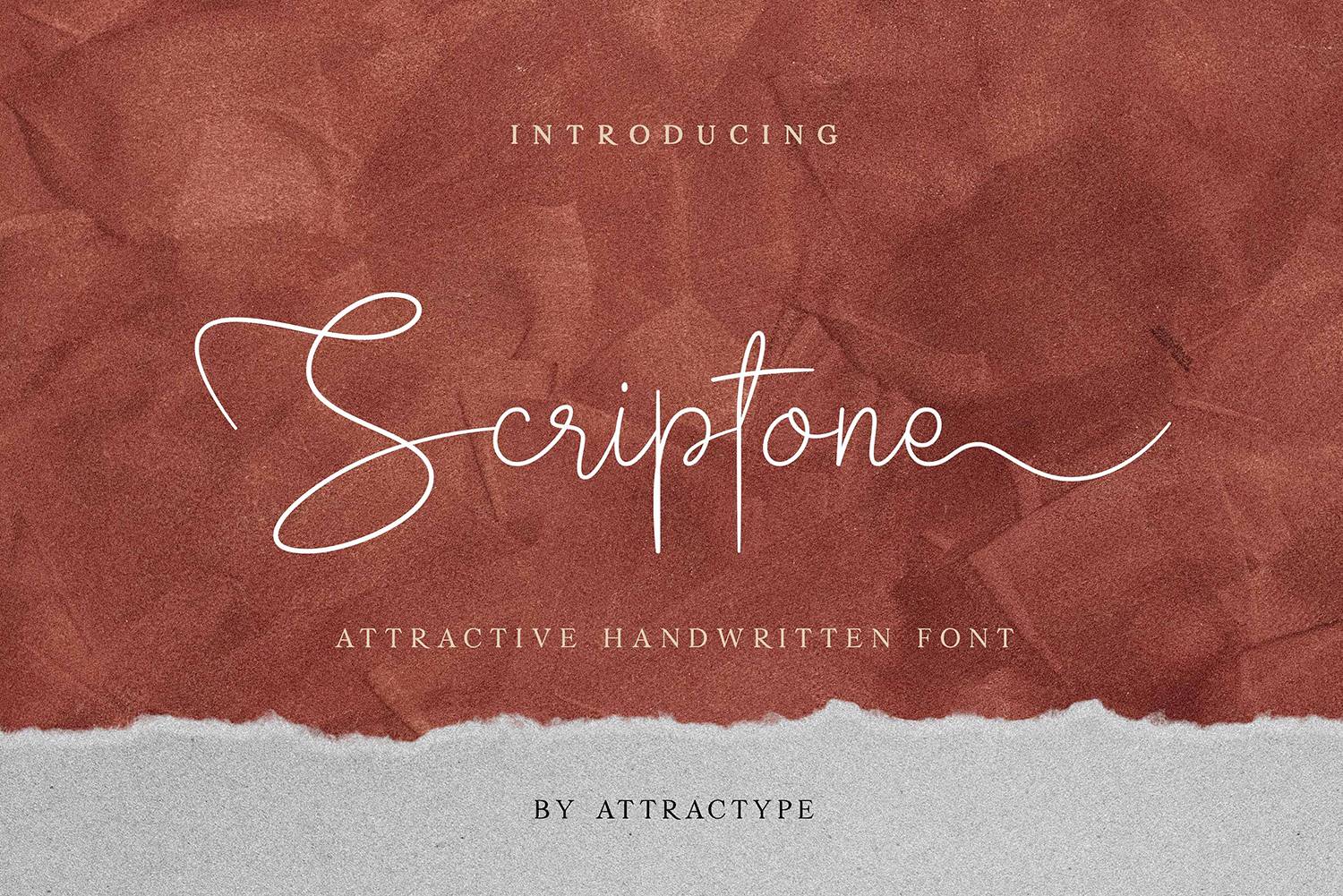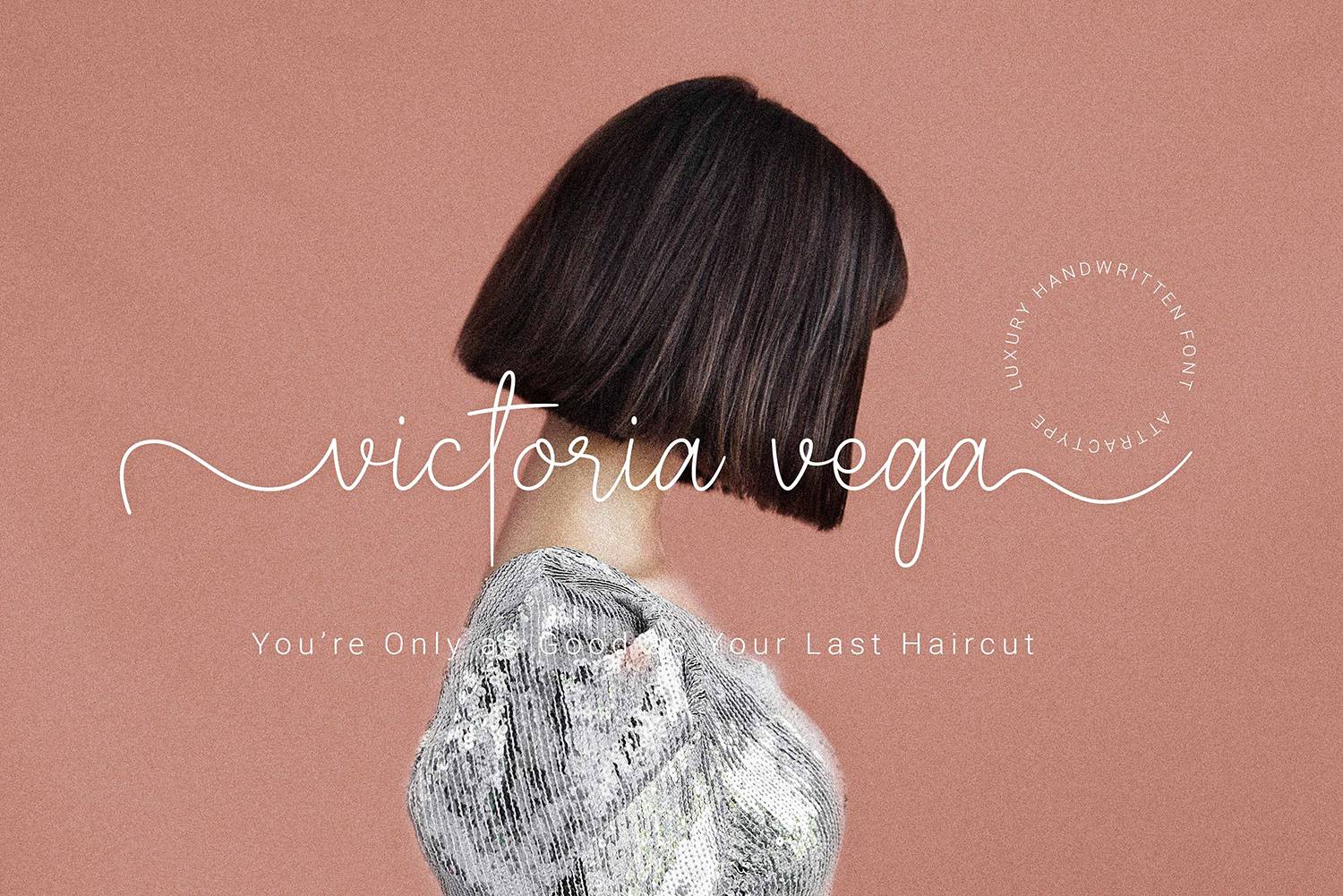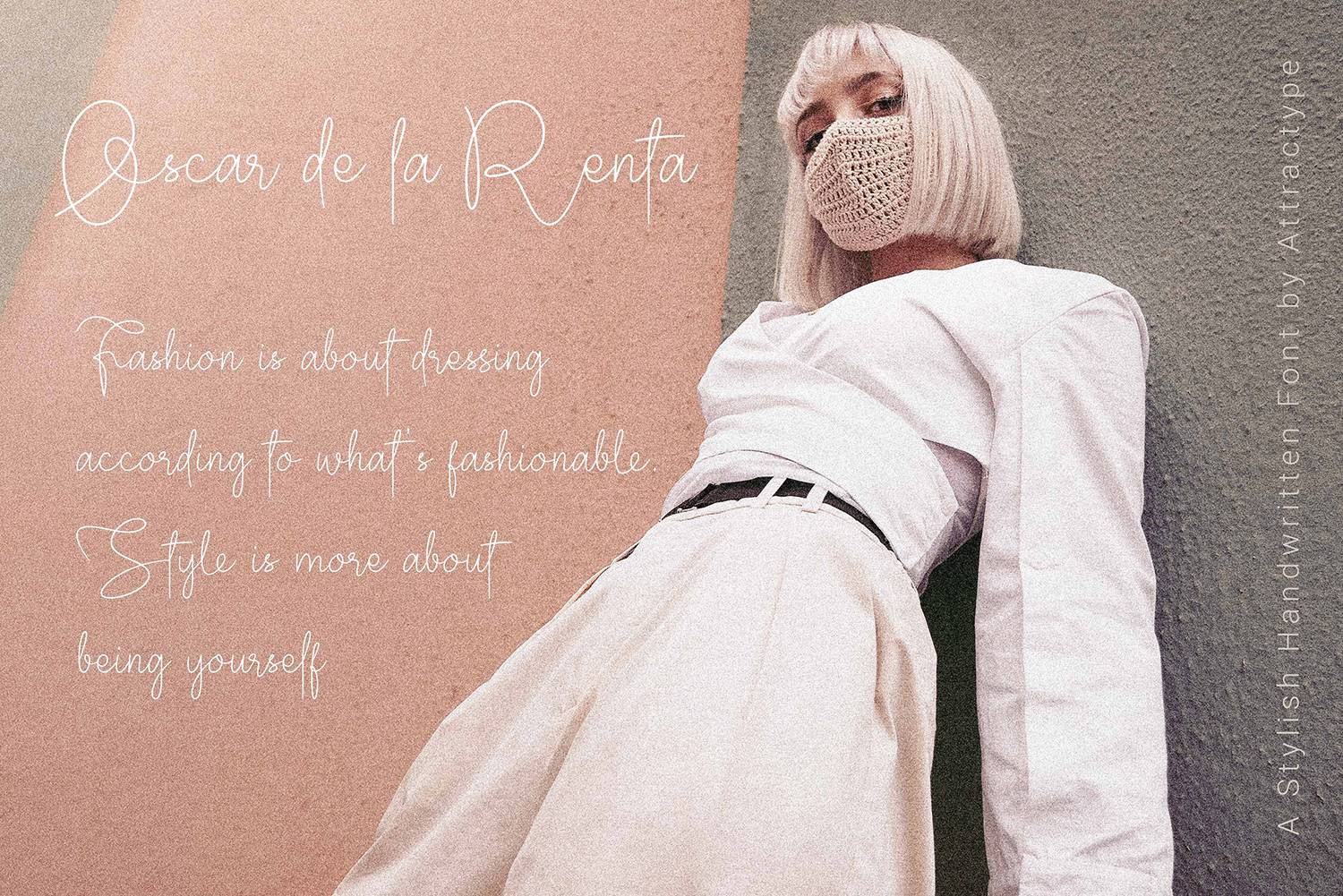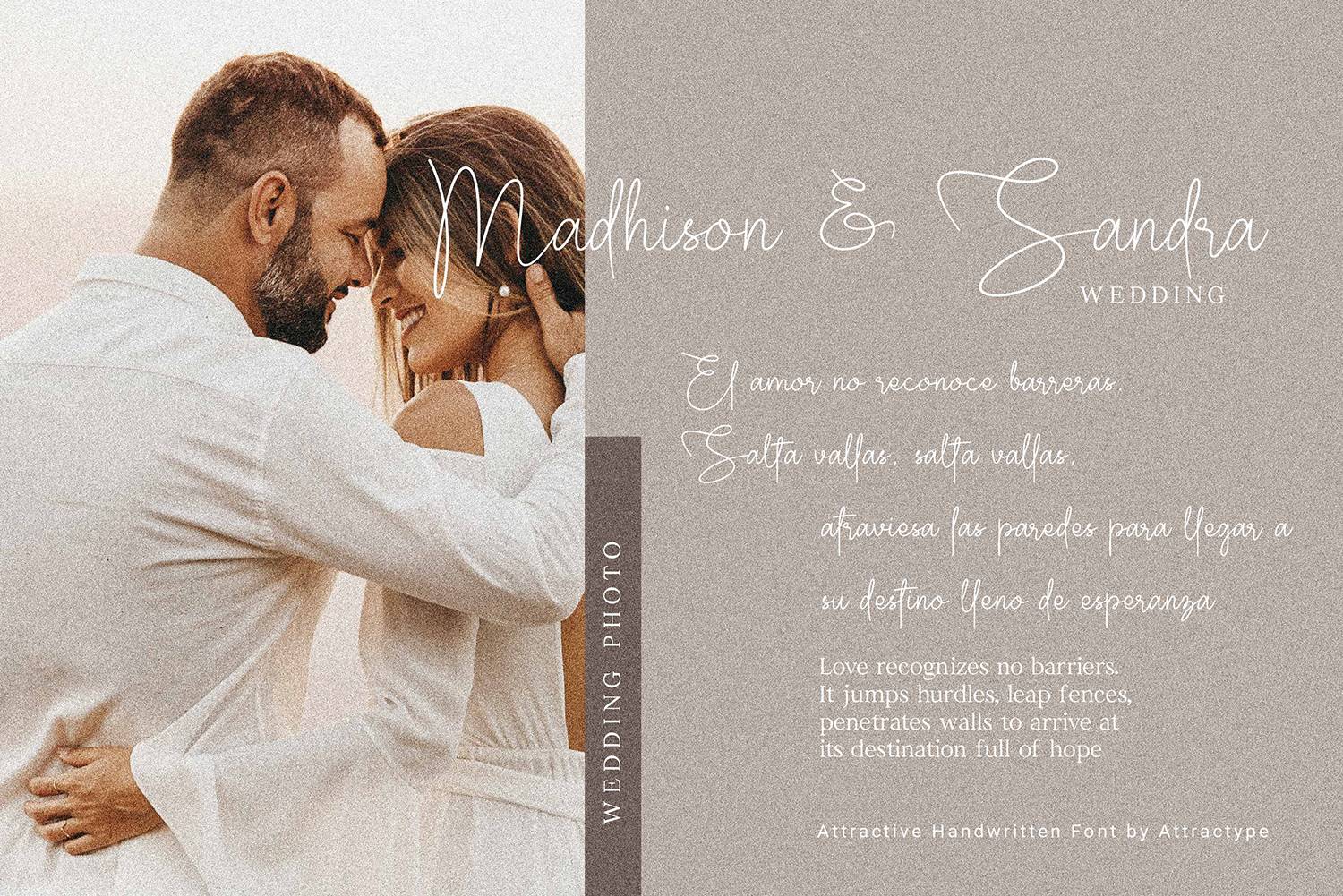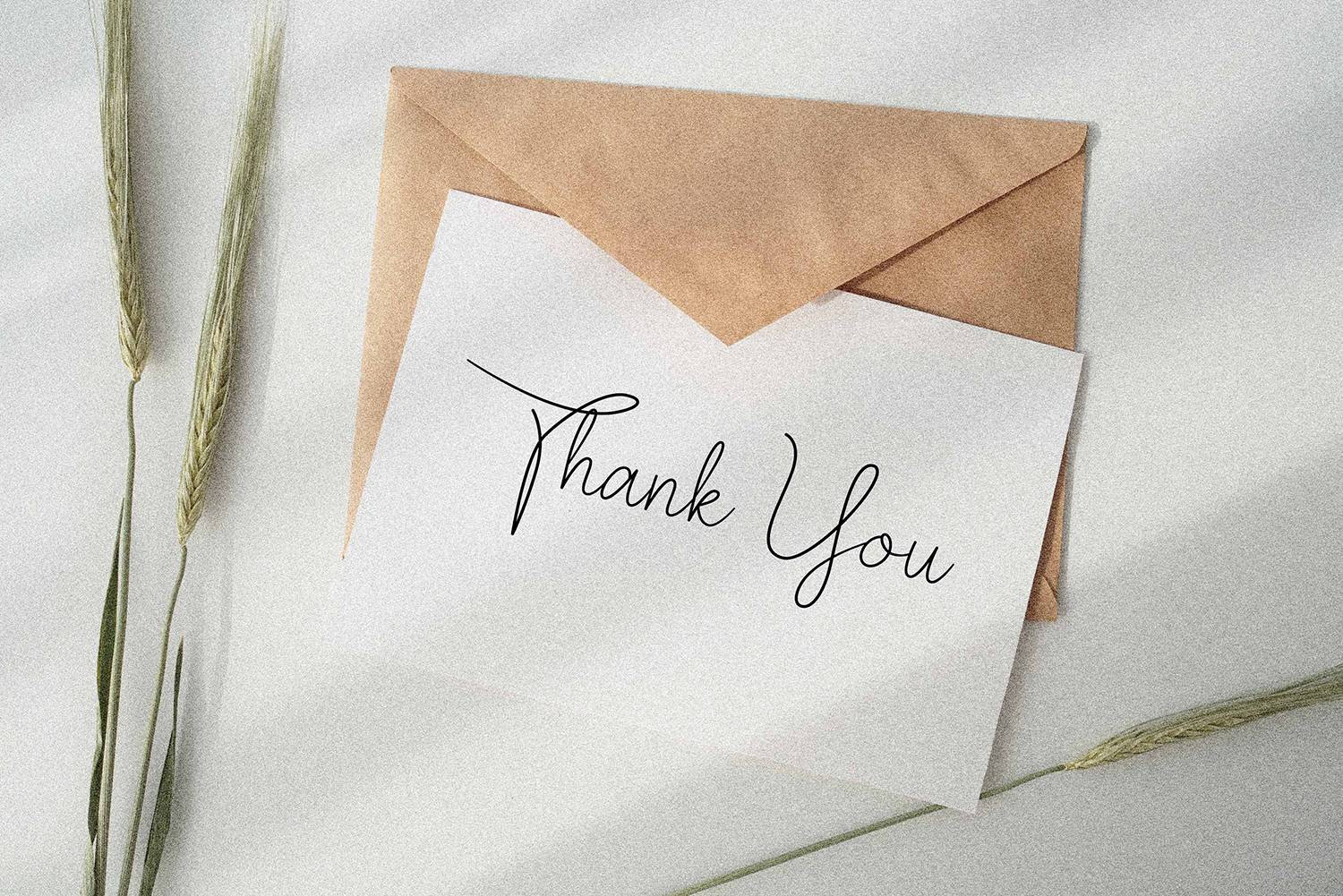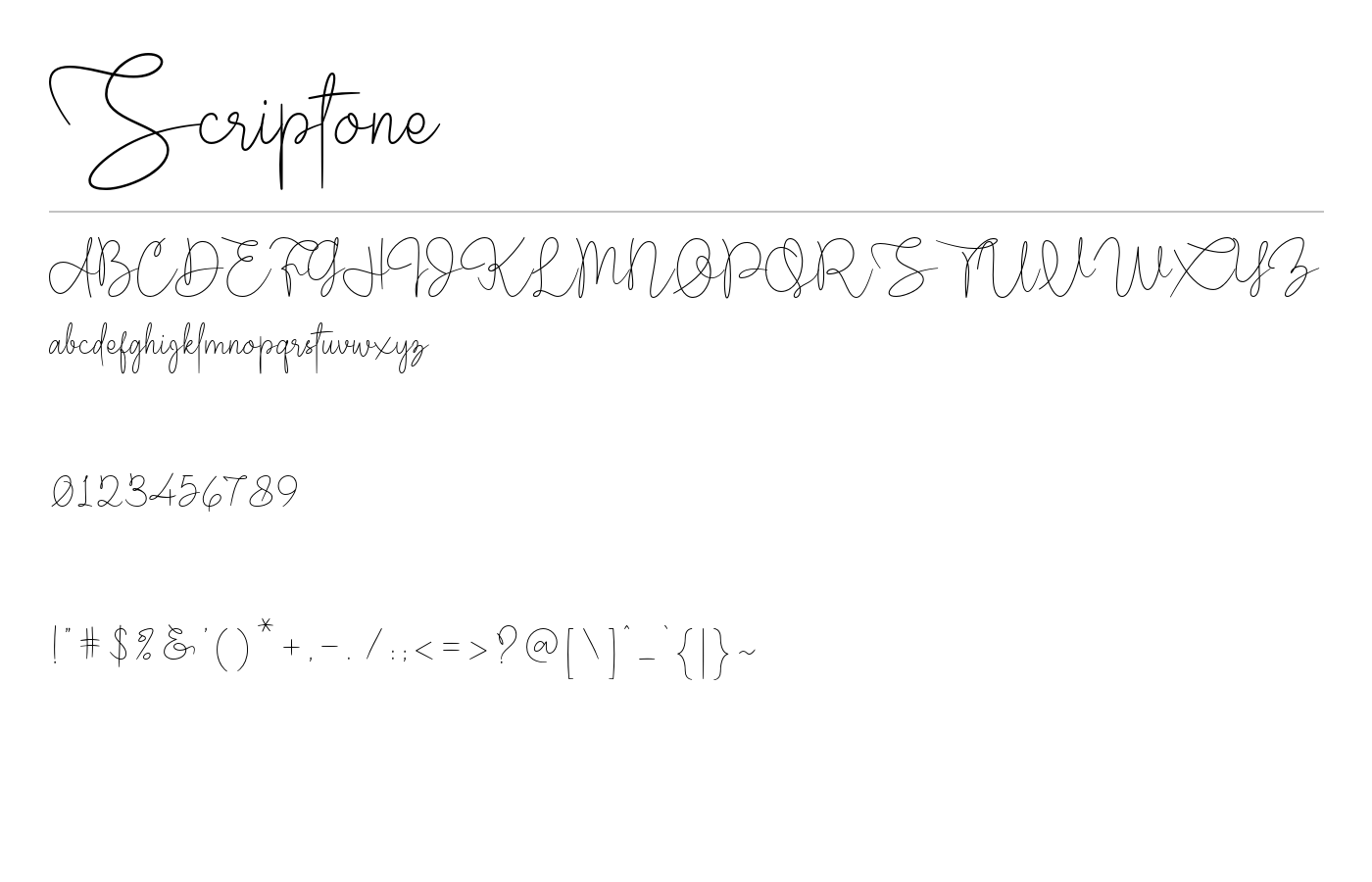
Scriptone is a delicate and elegant script font featuring thin, flowing lines with a light weight and tall, slender forms. Its graceful, handwritten style with intricate loops and swashes brings a refined, artistic feel perfect for invitations, branding, and creative projects where a romantic, sophisticated touch is desired. The font’s airy design works well in display settings where a stylish, personal expression is key.
Scriptone Font
About Scriptone Font
| Font family | Scriptone Font |
| Designer | Saefulloh |